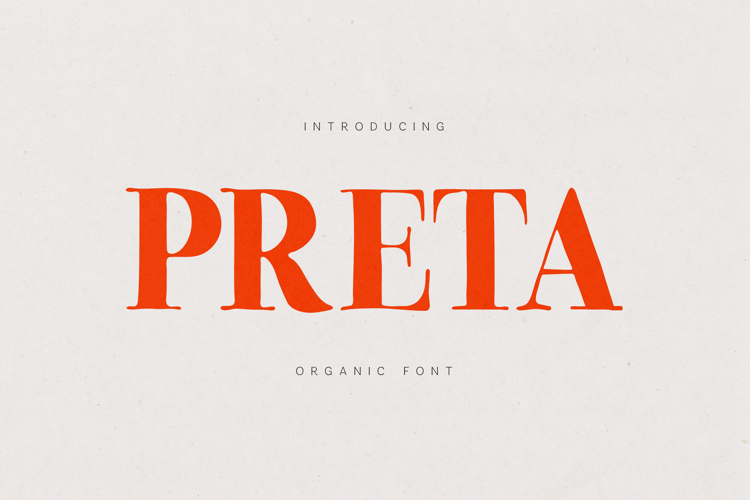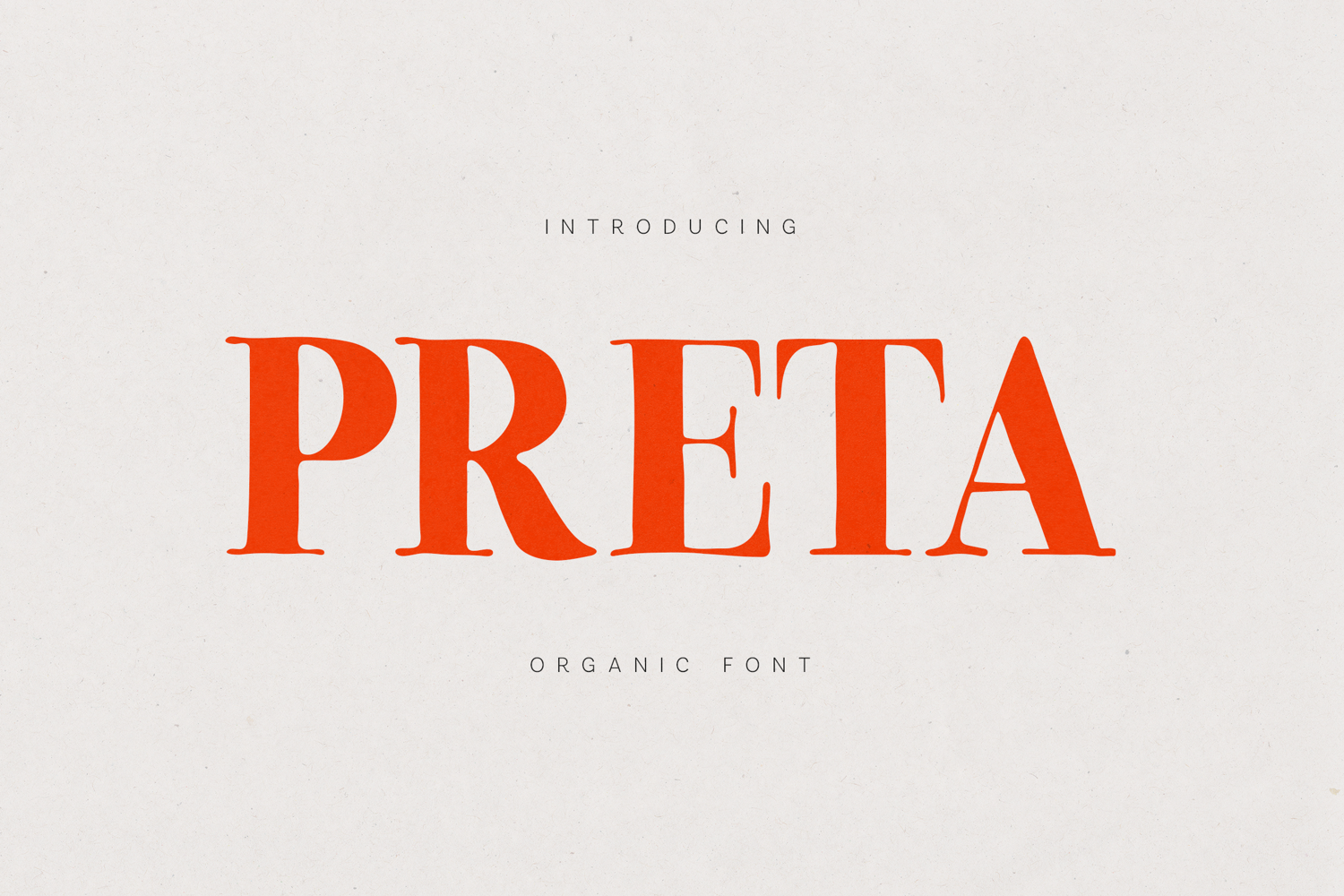
Preta Editorial Serif Font Family
Preta is a refined editorial serif that blends timeless elegance with contemporary character. Designed with graceful curves, expressive contrast, and carefully crafted details, it brings sophistication to branding, packaging, magazines, beauty products, restaurants, luxury goods, and high-end marketing materials.
Its distinctive letterforms create a memorable visual identity while remaining highly readable across headlines, logos, labels, websites, and print applications. Inspired by classic typography yet adapted for modern design needs, Preta delivers a balance of heritage, style, and versatility.
Whether you're creating a premium brand, editorial layout, product packaging, or elegant visual campaign, Preta provides the confidence and personality needed to make your work stand out.
- Elegant Editorial Style